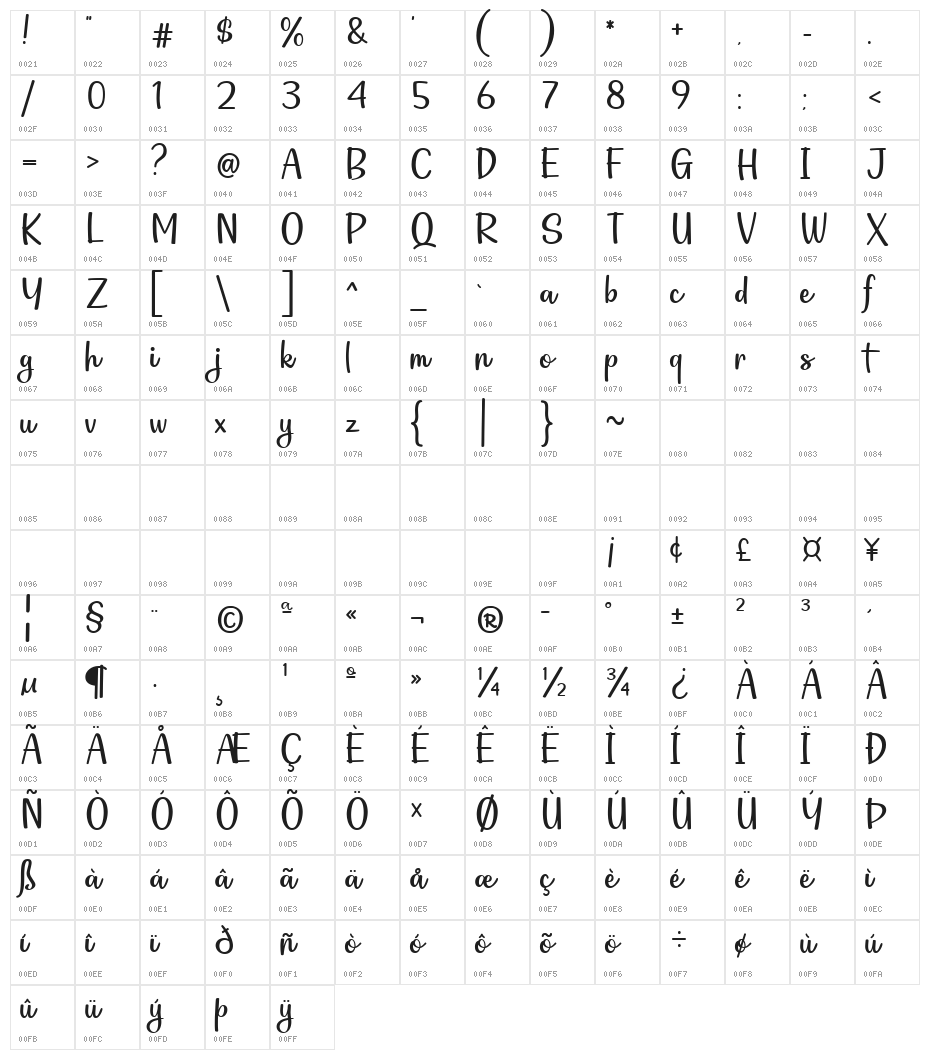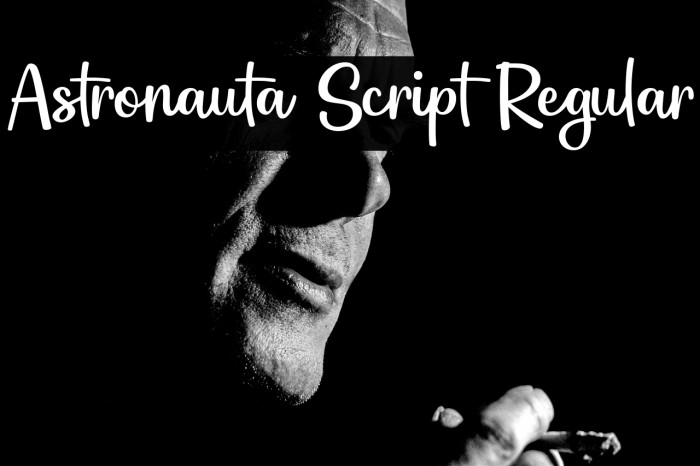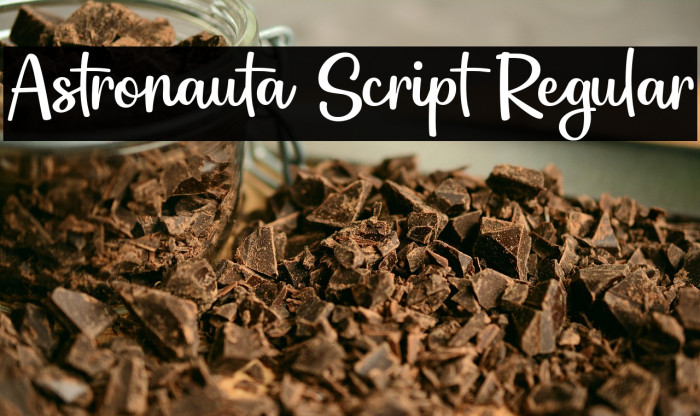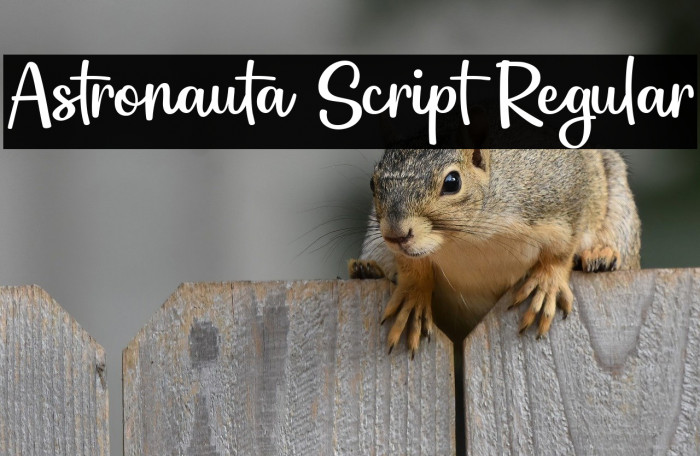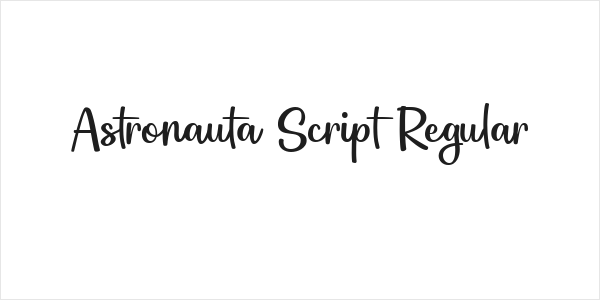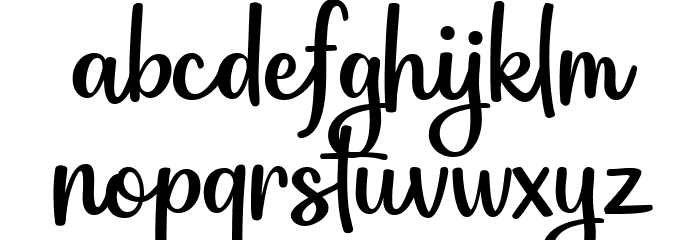
Astronauta Script Regular Font
Astronauta Script Regular Description
This font exudes a playful and casual vibe, characterized by its handwritten style. The letters are slightly slanted, giving it a dynamic and lively appearance. The strokes are smooth and fluid, with a consistent thickness that maintains readability while adding a personal touch. The uppercase letters are bold and prominent, while the lowercase letters are more relaxed and flowing. The numerals and special characters maintain the same playful style, making it versatile for various uses. Overall, this font is perfect for projects that require a friendly and approachable aesthetic.
| Proposed Projects | Ideal for greeting cards, invitations, personal branding, and social media graphics. |